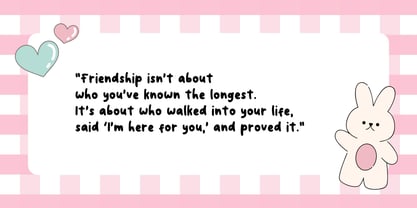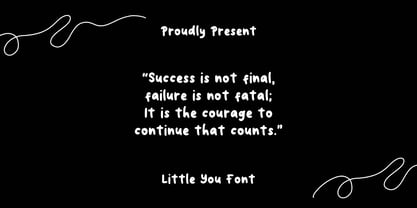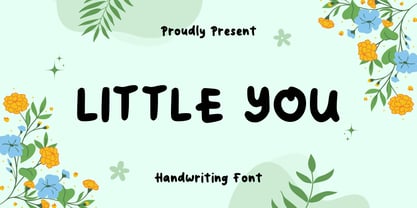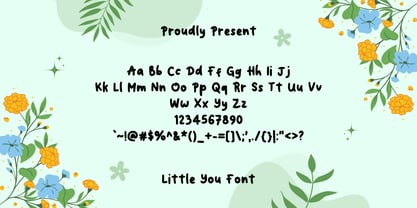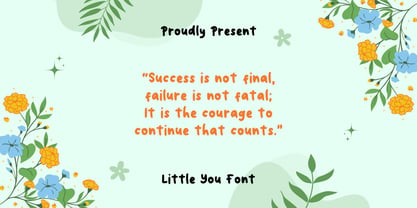
Little You
by Sidkia Fonts
The Little You Font Family was designed by and published by Sidkia Fonts. Little You contains 1 styles. More about this family
The Little You Font is a cute, playful handwritten typeface with a cozy handmade vibe. Its slightly chunky strokes and natural letter shapes give it a warm, friendly feel that’s perfect for kids’ projects, greeting cards, quotes, or any design that needs a touch of sweetness.
With its fun and approachable look, Little You is great for adding personality to scrapbooks, invitations, social media graphics, and anything that wants to feel cheerful and heartwarming.